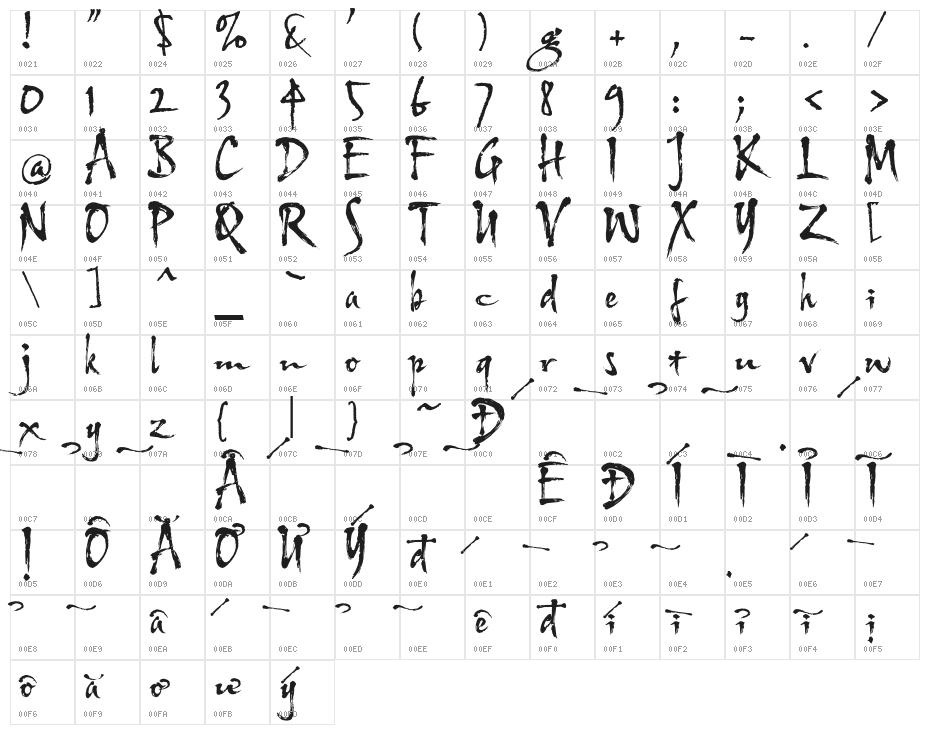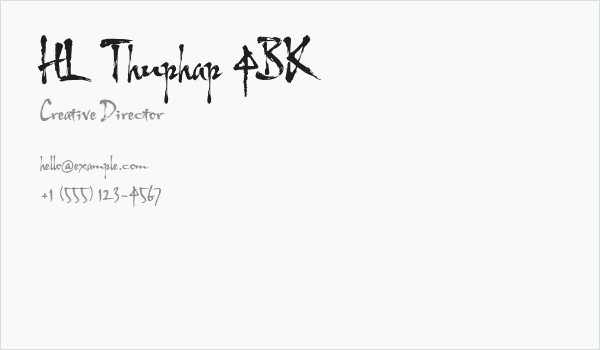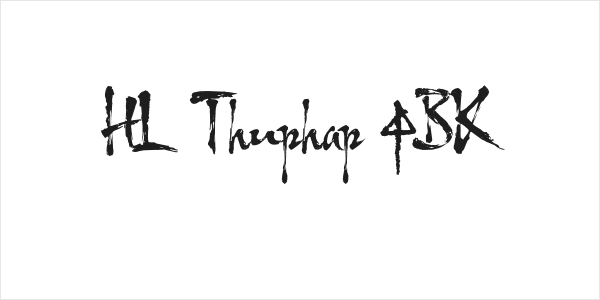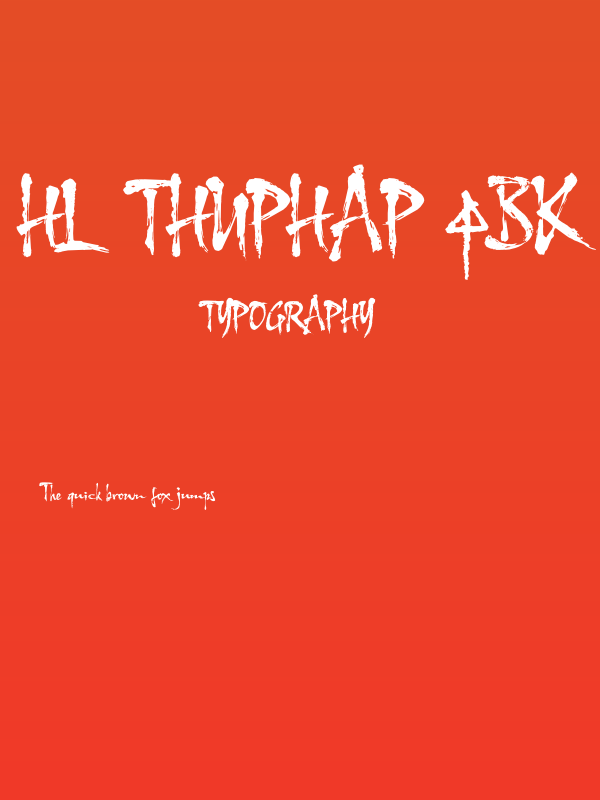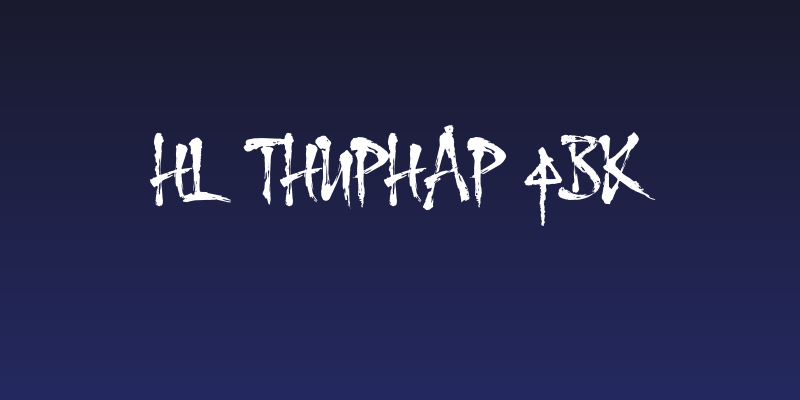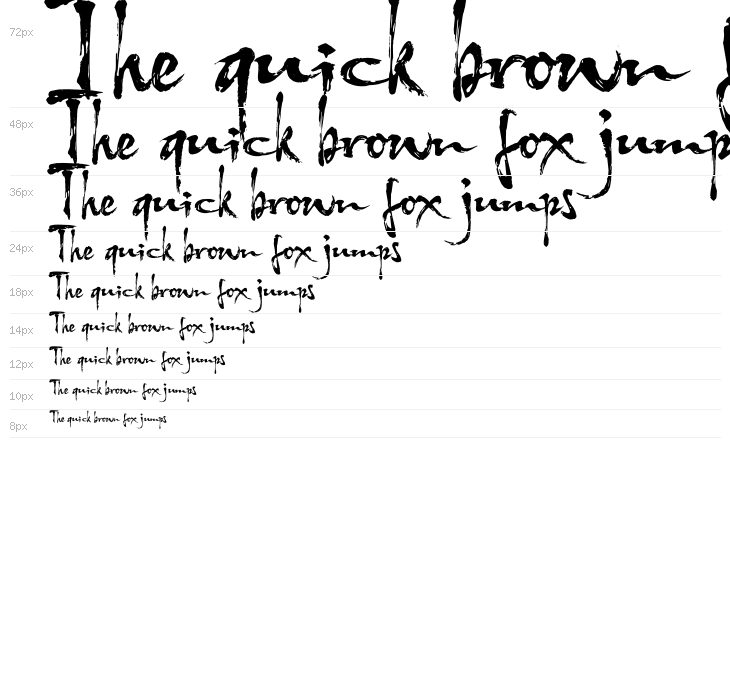
HL Thuphap 4BK Font
HL Thuphap 4BK Description
This font exudes a dynamic and expressive style, reminiscent of traditional calligraphy with a modern twist. The strokes are bold and varied, creating a sense of movement and energy. The uppercase letters are particularly striking, with sharp angles and fluid lines that suggest a sense of urgency and creativity. The lowercase letters maintain this fluidity, offering a harmonious balance between formality and artistic flair. Numbers and special characters are equally expressive, maintaining the overall aesthetic. This font is ideal for projects that require a touch of elegance and creativity, such as artistic posters, invitations, or branding materials.
| Use Case | Headlines, Logos, Artistic projects |
| Proposed Projects | Artistic posters, invitations, branding materials, creative projects. |